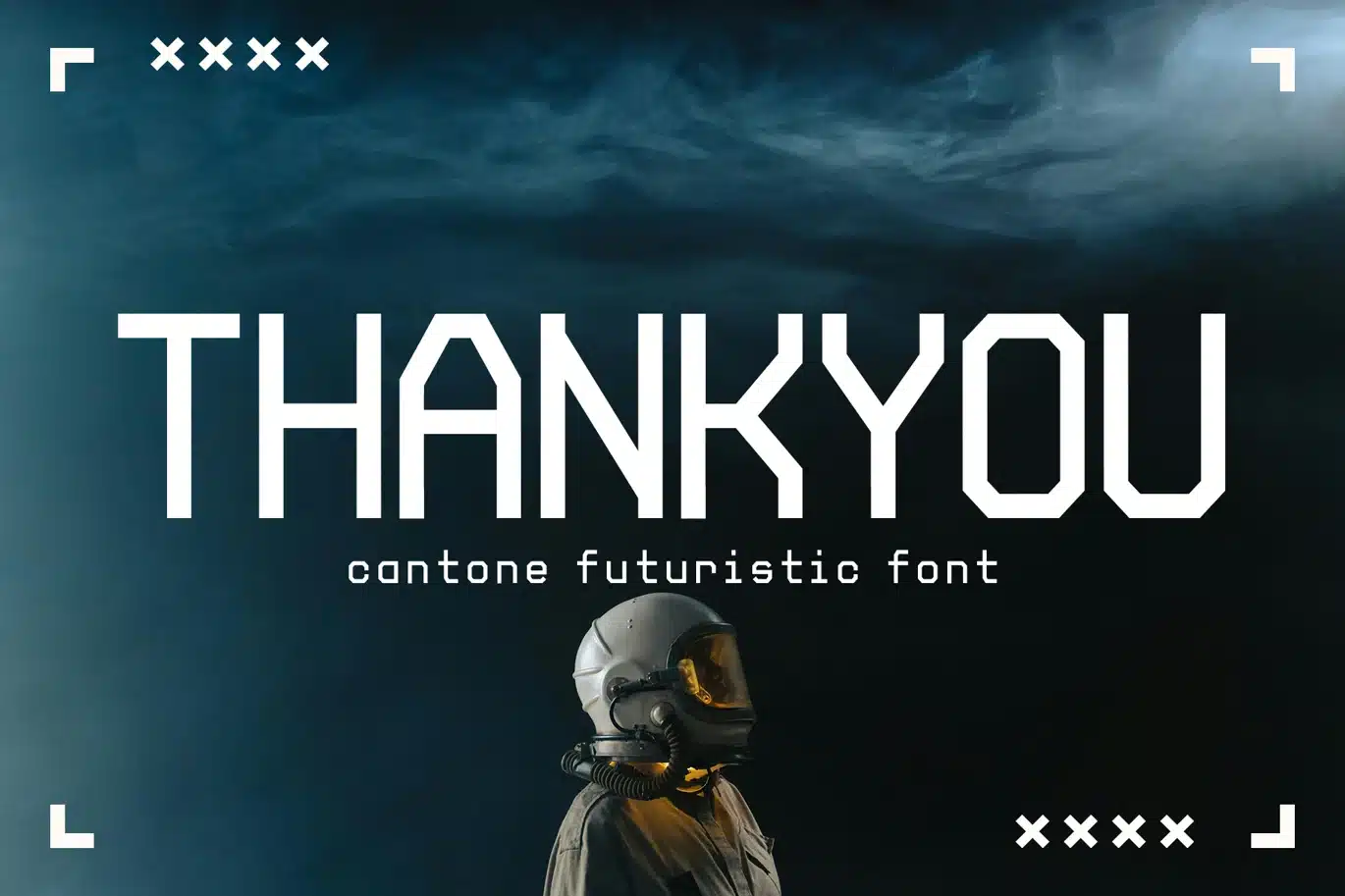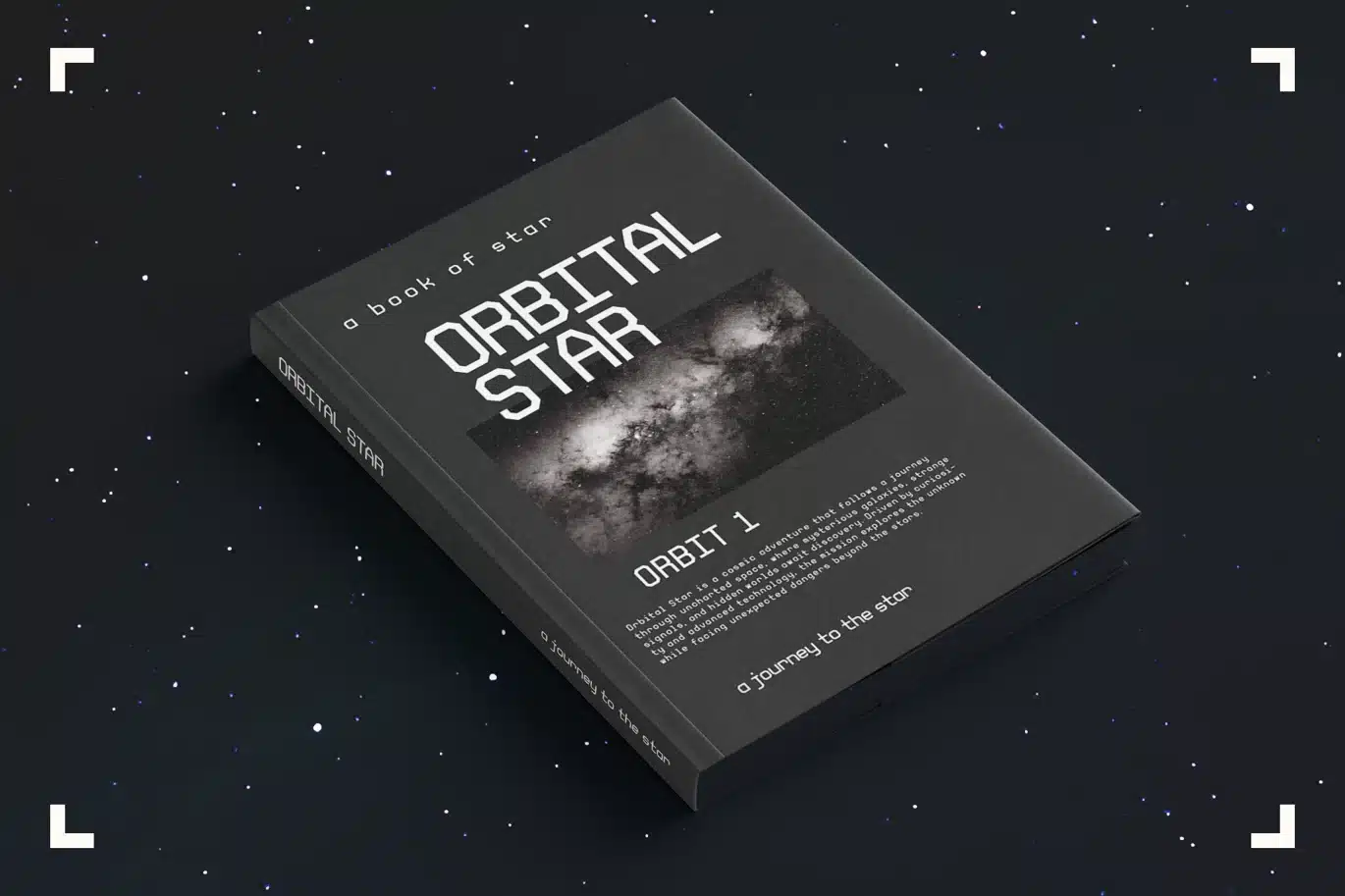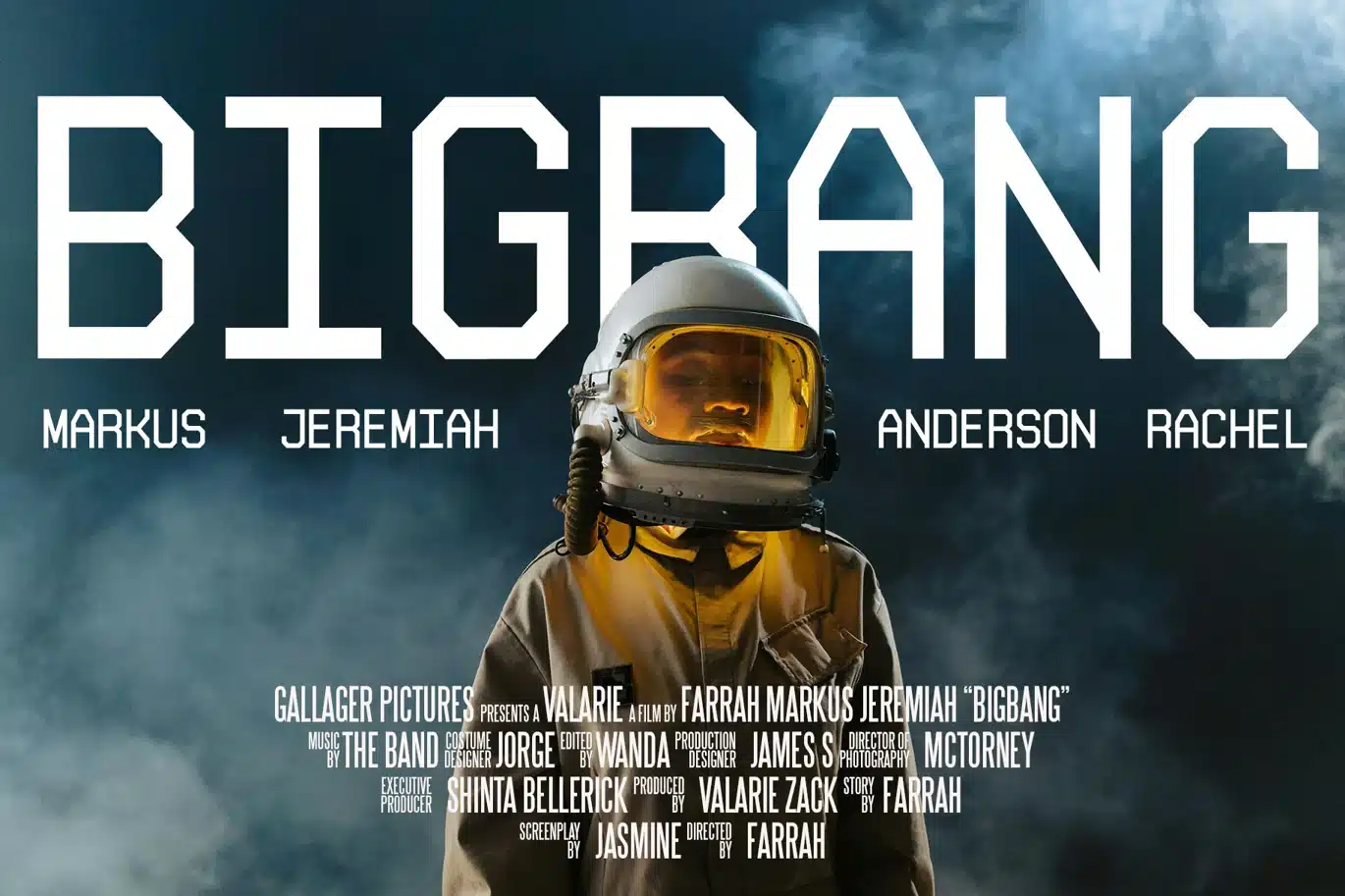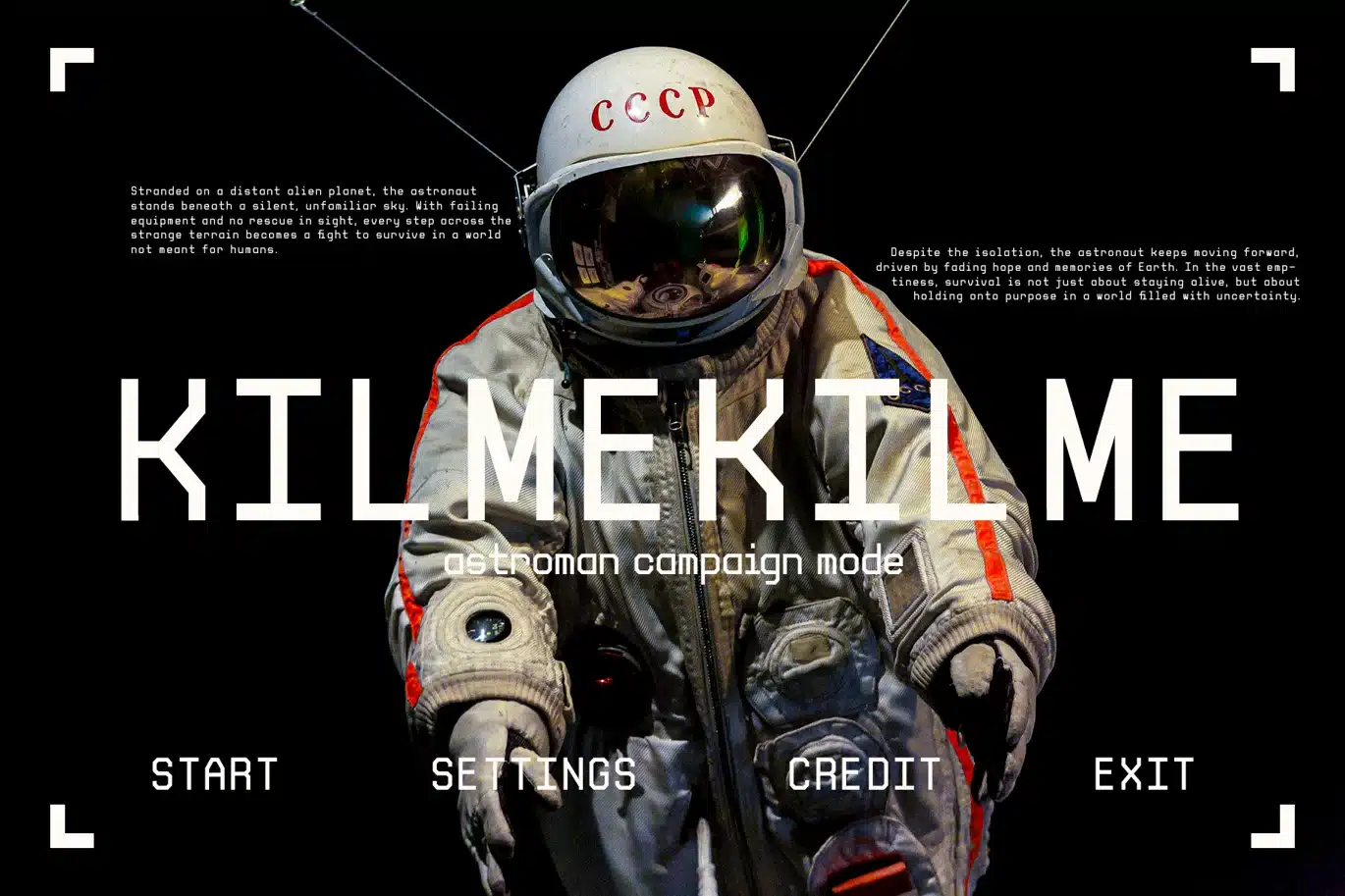
Futuristic Font – Cantone
Cantone is a futuristic sans-serif typeface designed with sharp geometric forms and a clean structural appearance. The letterforms feature precise angles and balanced proportions, creating a modern and technological visual identity.
Its consistent construction ensures clarity across different sizes, making it suitable for both display and supporting text in digital environments. The structured design gives a strong sci-fi and industrial feel while maintaining readability.
Cantone works effectively for branding, user interfaces, posters, film titles, packaging, and editorial layouts that require a futuristic and contemporary typographic style.